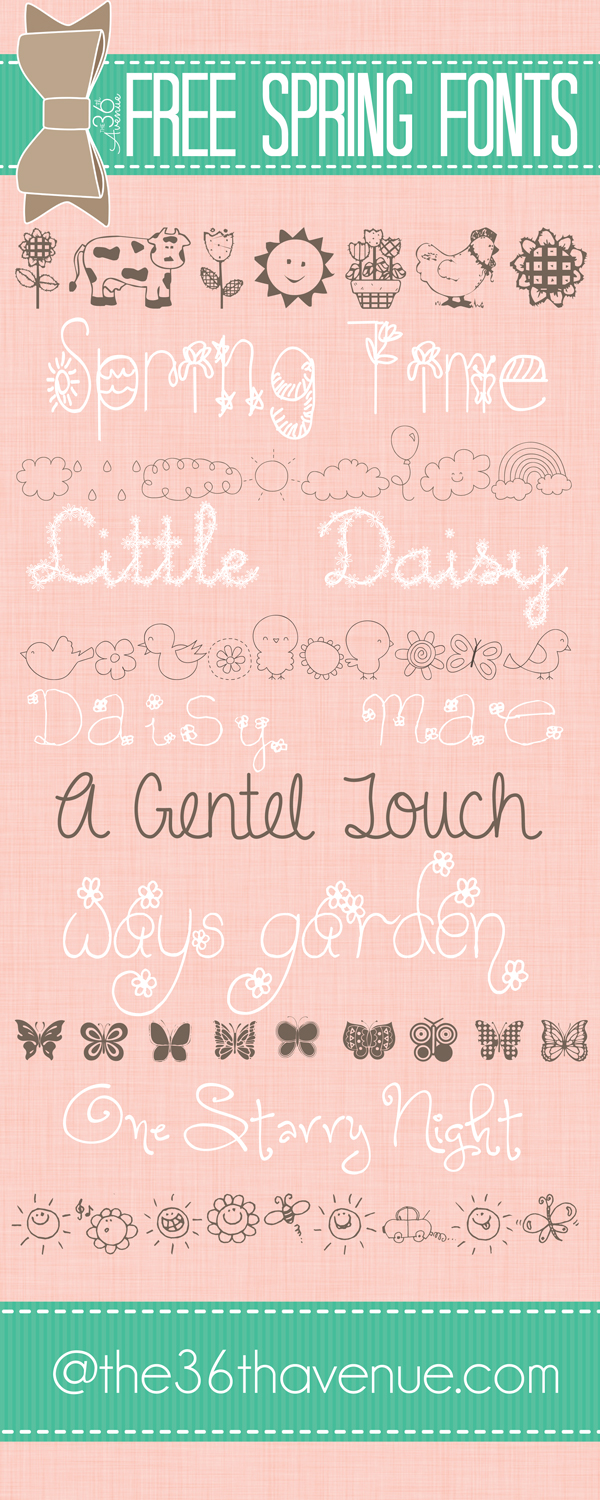
Famous Springtime Fonts Free Ideas
Famous Springtime Fonts Free Ideas. Download springtime font · free for personal use · hi there, thank you for downloading this font.this is font free for personal use,“personal use mean free use only in personal project. Springtime is a cute font that will give a fun touch to your projects!
Springtime is a script, handwritten font designed by denise bentulan. A b c d e f g h i j k l m n o p q r s t u v w x y z # 3d alien animal army stencil asian arabic bitmap pixel. The springtime blues font has been downloaded 17,449 times.
Click to find the best 229 free fonts in the spring style. Hello springtime is a lovely and jolly duo font (script and serif). Every font is free to download!
Download it now and start creating your invitation cards, posters and much more with springtime! Incredibly versatile, this font fits a wide pool of designs, elevating them to the highest levels. Springtime is a fun and cute handwritten font.its natural and unique style makes it incredibly fitting to a large pool of designs.use this font for any crafting project that requires a.